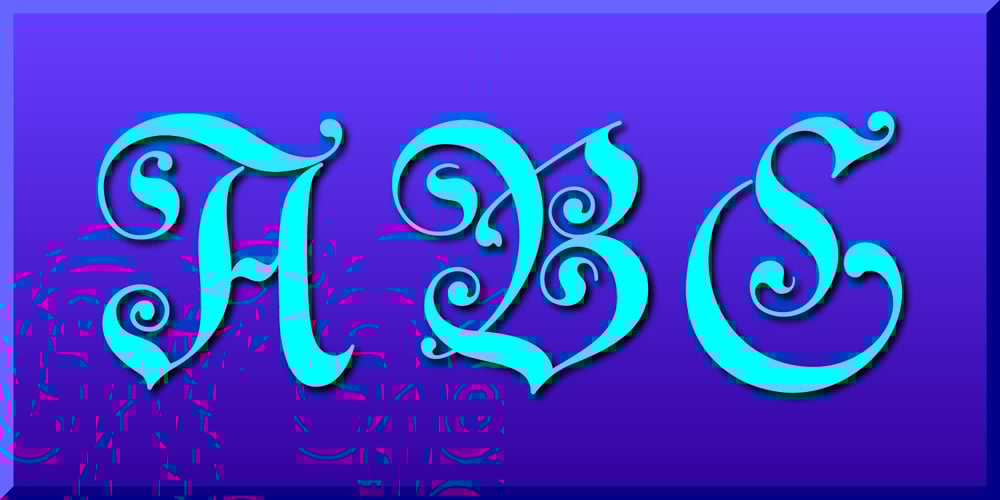
Gothic Initials One
Gothic Initials One font
Gothic Initials One Font Family was designed by Gerald Gallo and published by Gerald Gallo. Gothic Initials One contains 1 styles and family package options. Gothic Initials One was inspired by the beautifully-written gothic scripts of medieval scribes. The font contains the upper case letters A through Z under both the character set and shift+character set. This font is intended for use as initials, monograms, drop caps or wherever fancy letters are desirable.